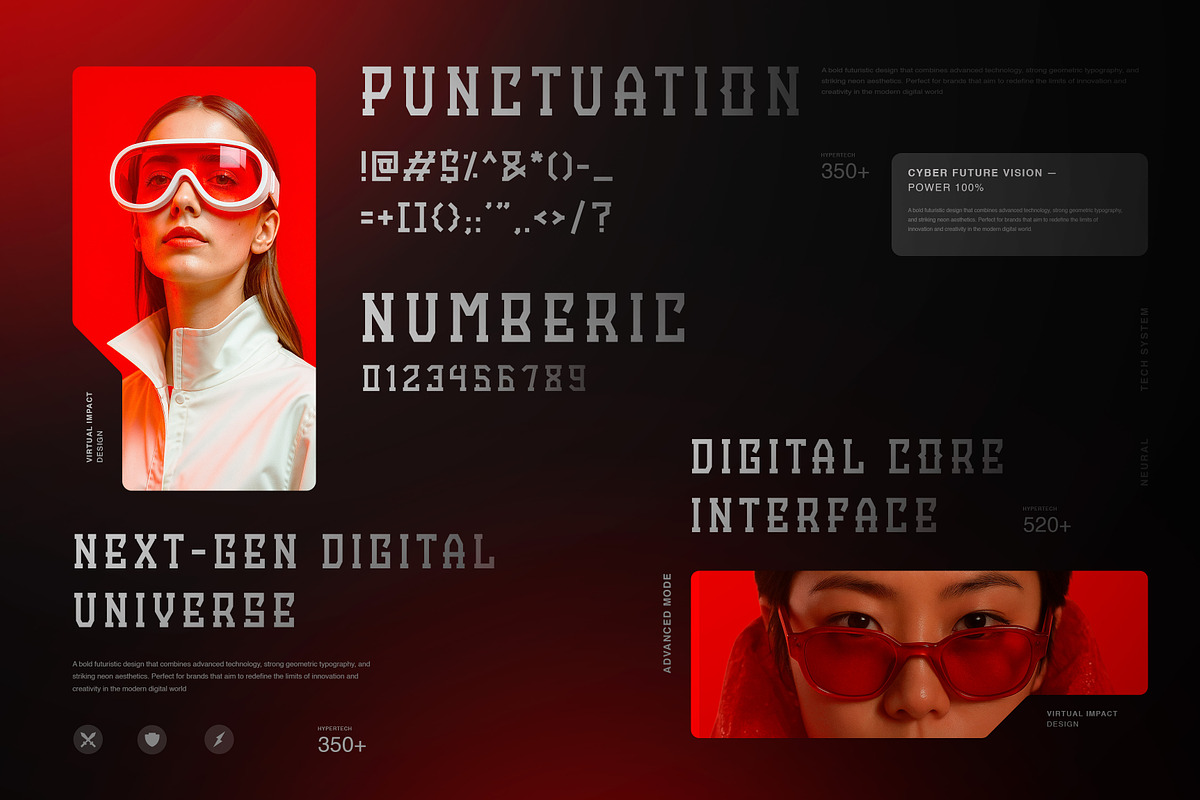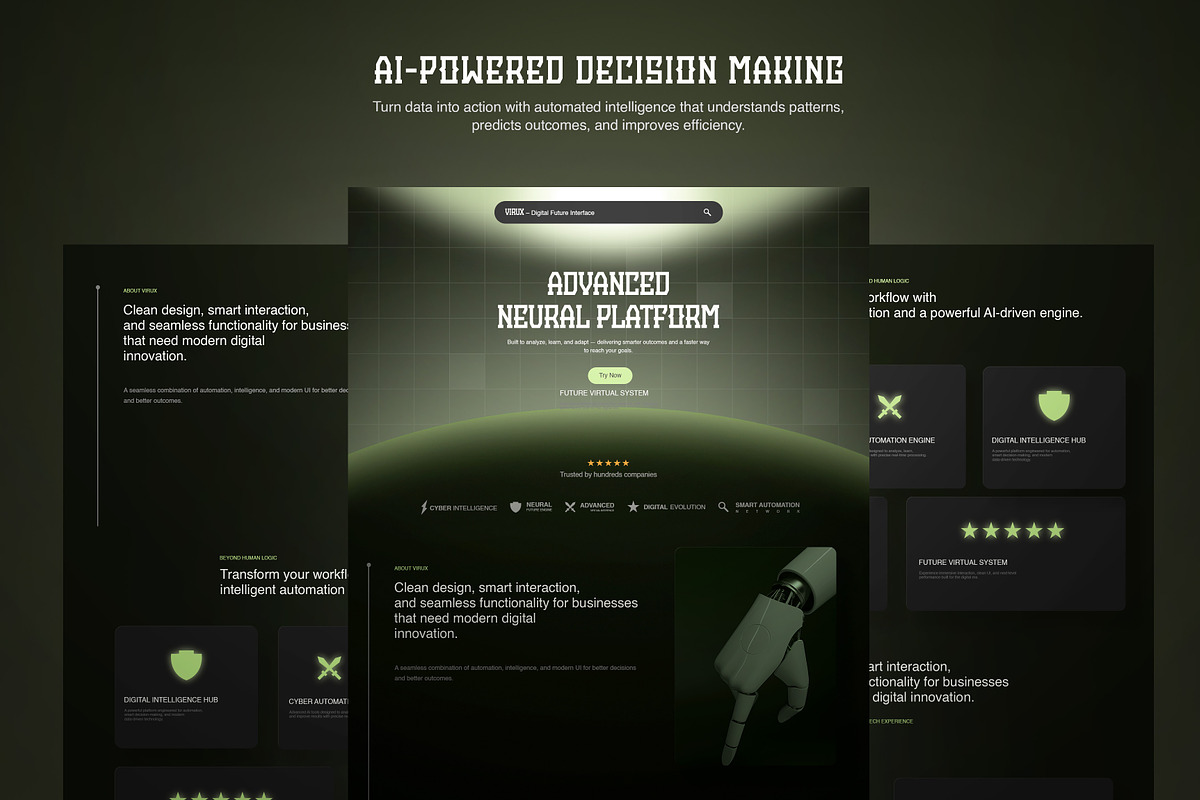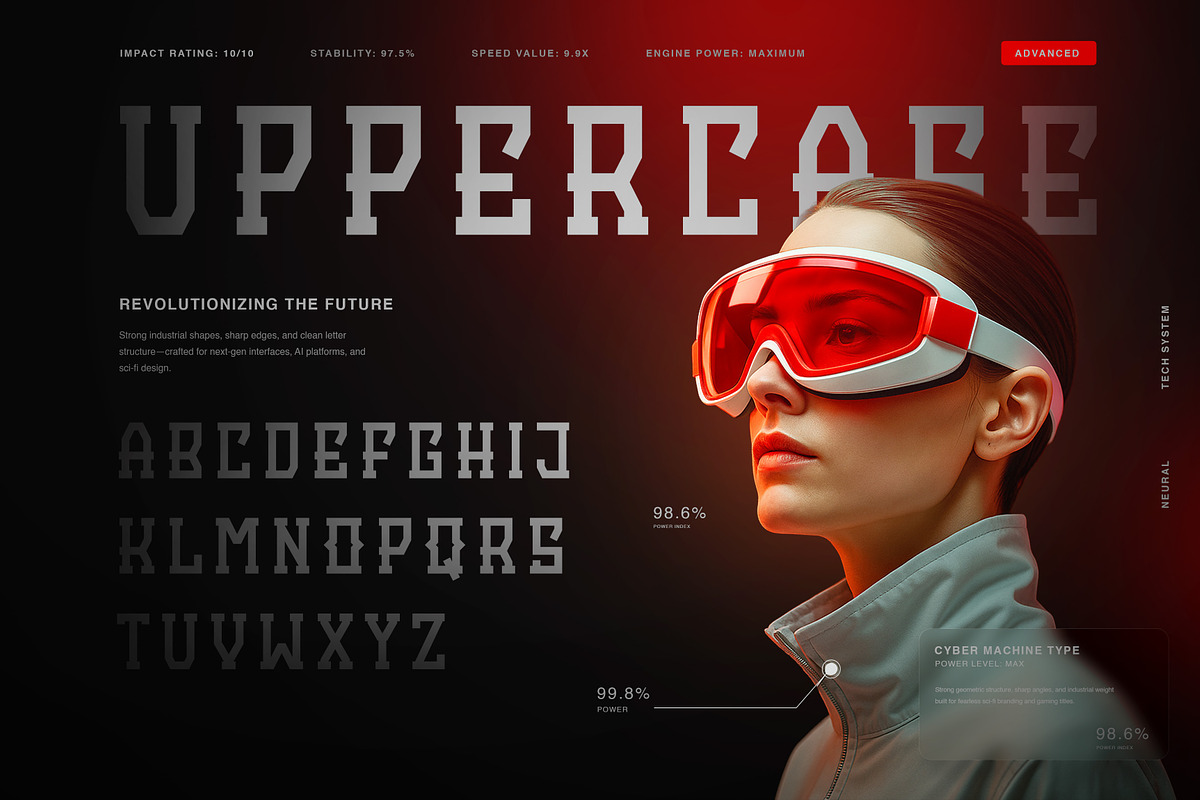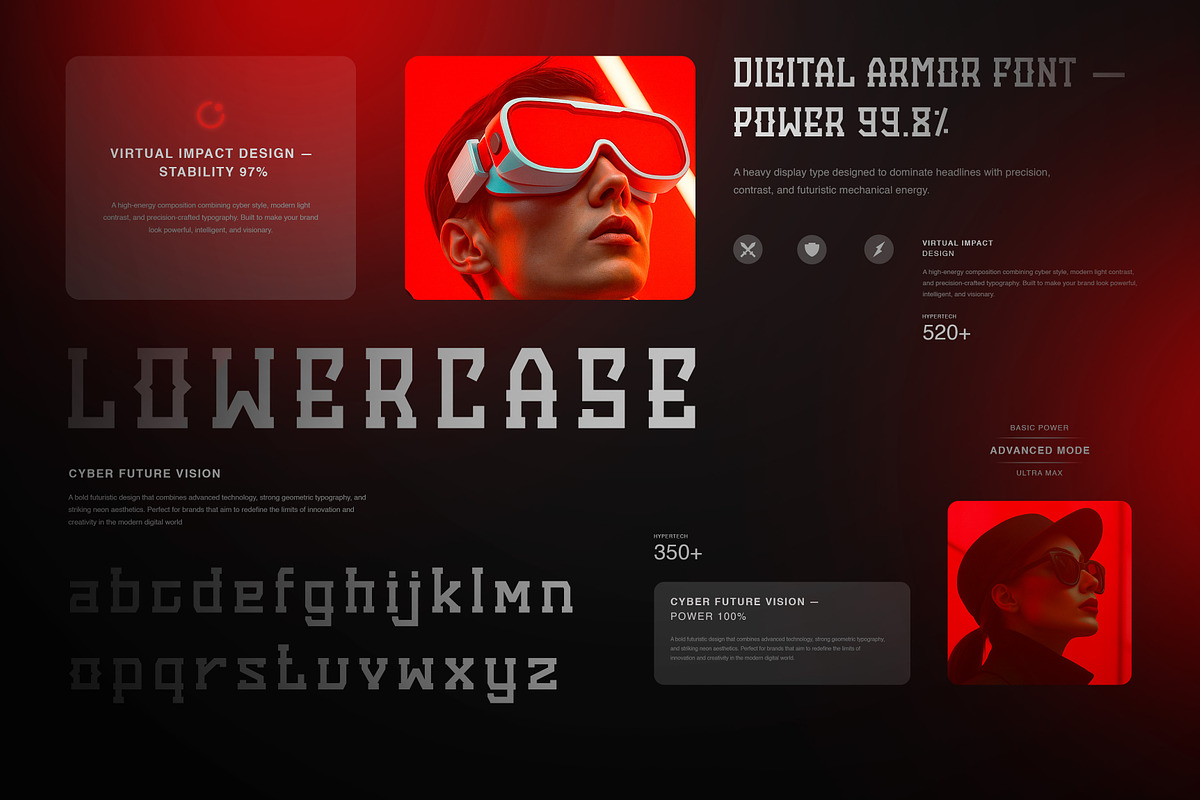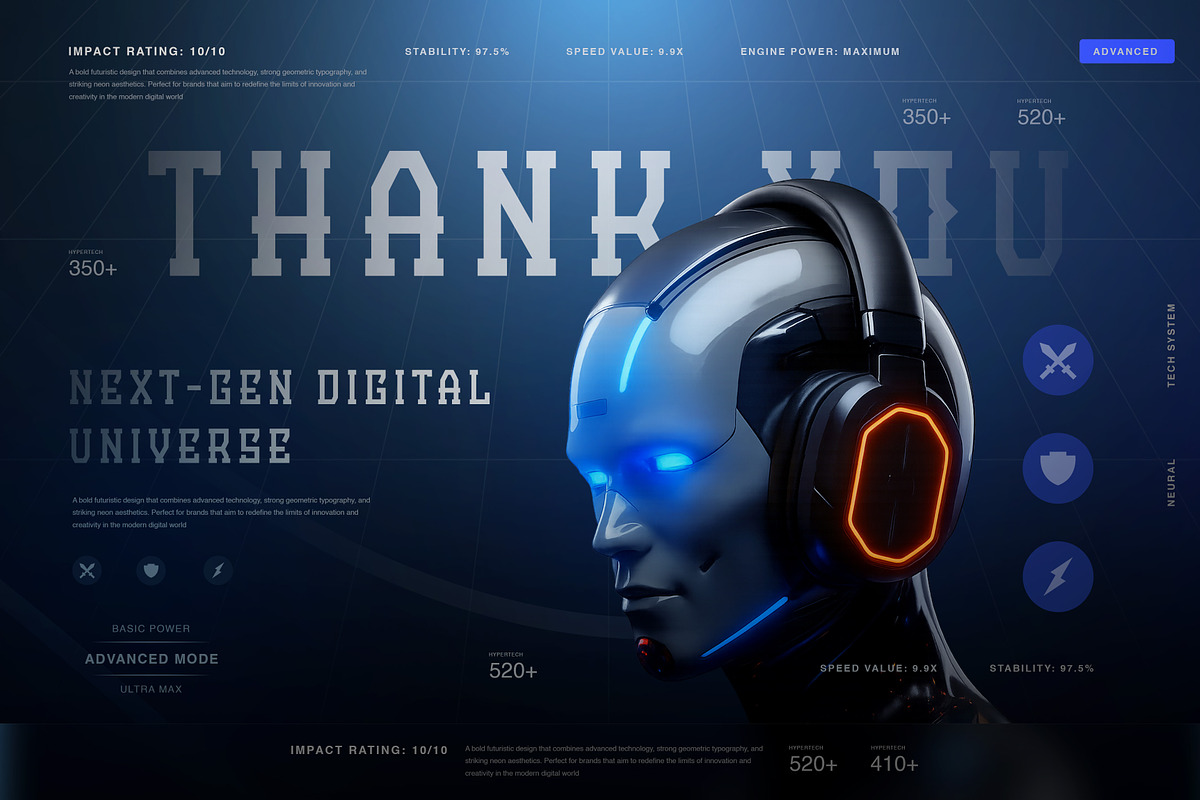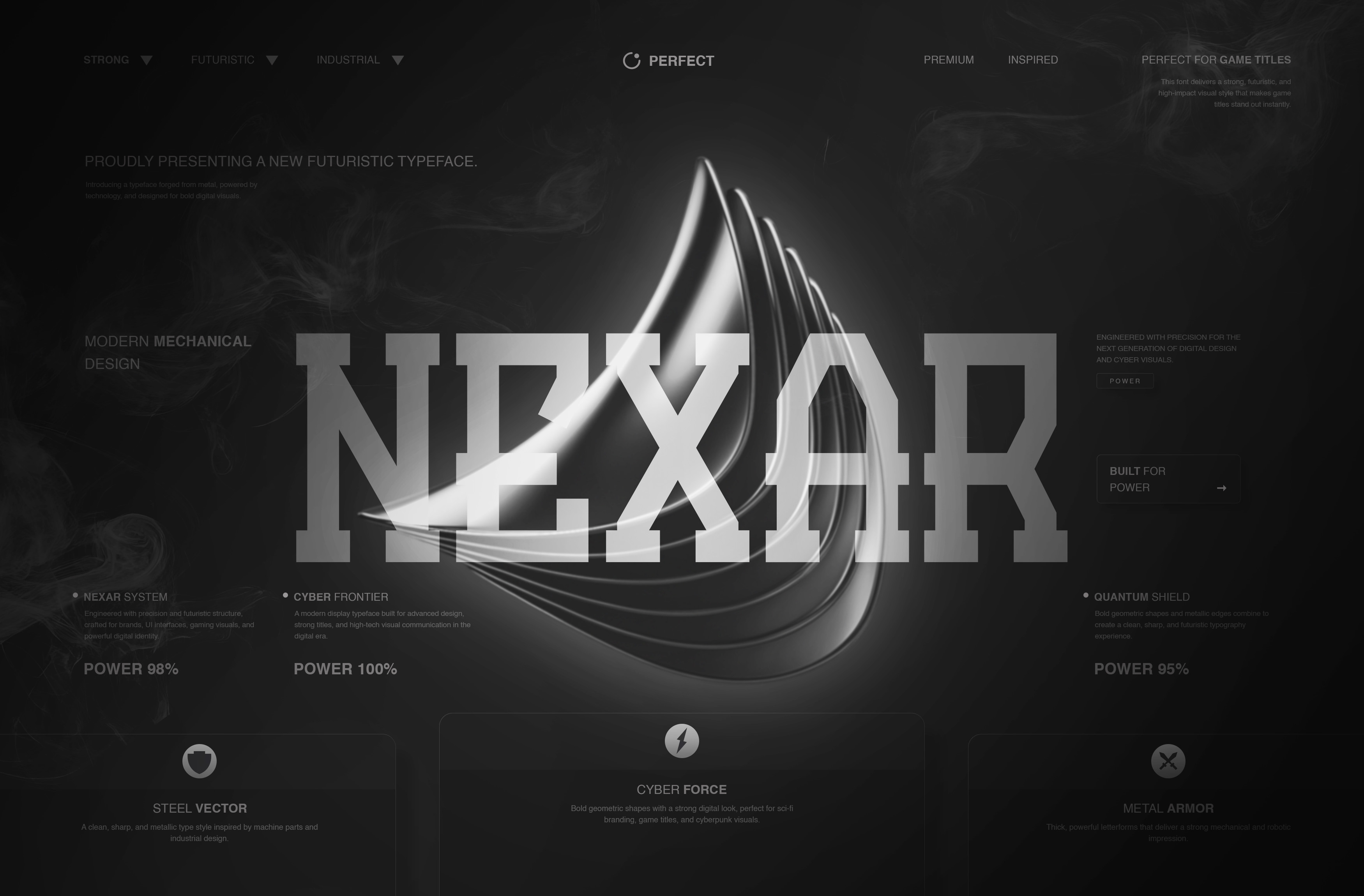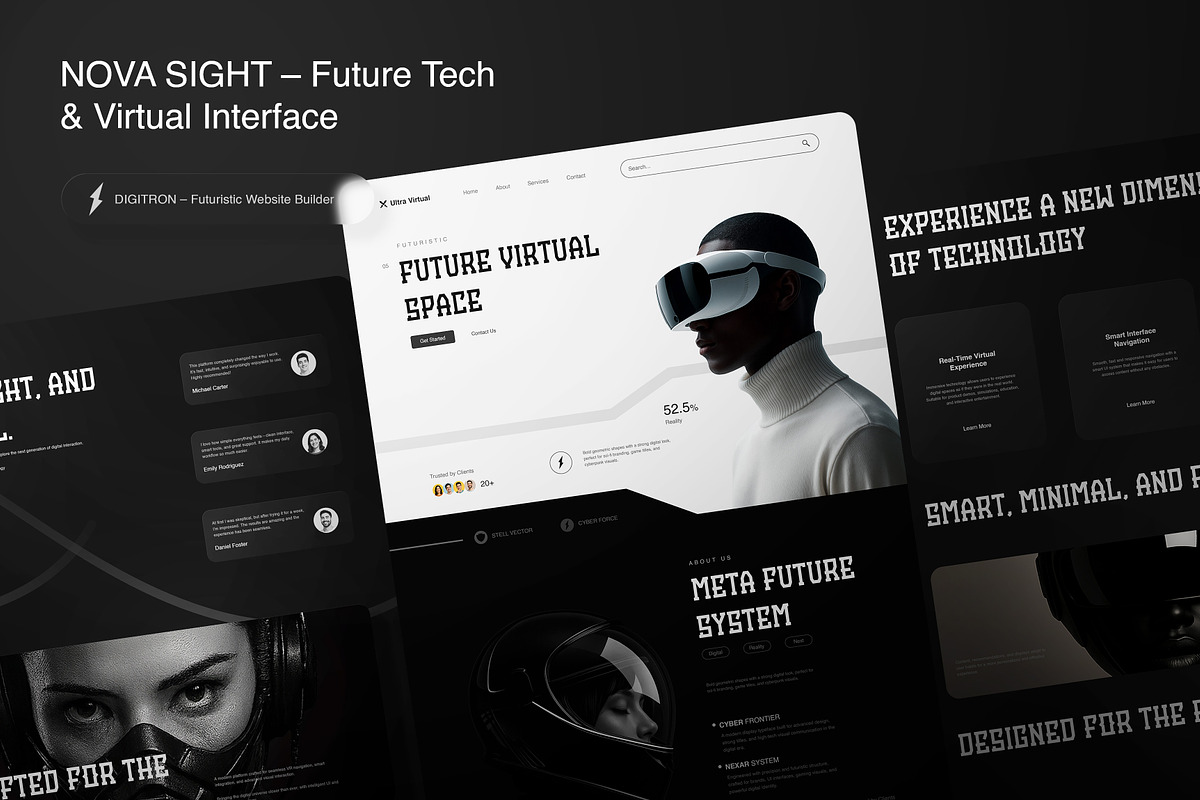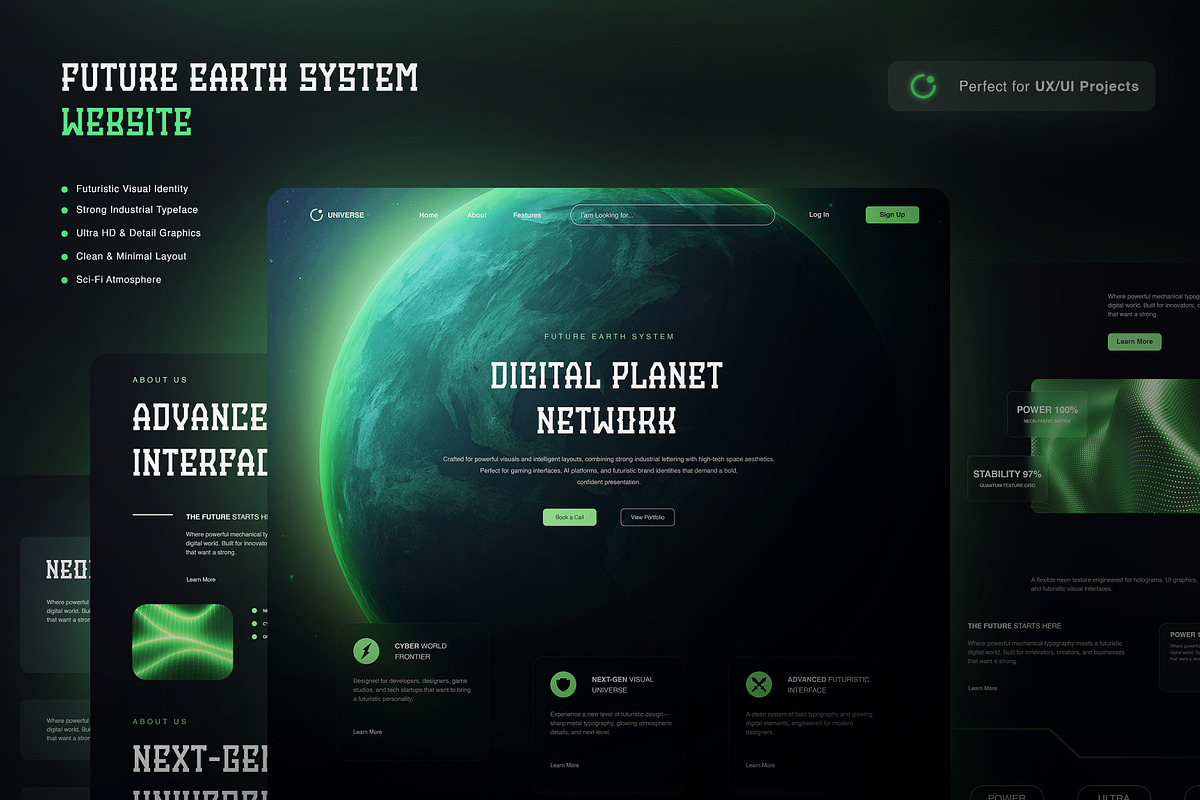
NEXAR – Futuristic Typeface
NEXAR – Futuristic Industrial Typeface
NEXAR is a bold futuristic typeface built with strong mechanical structure, sharp geometry, and high-impact visual energy. Designed for brands that demand power, precision, and modern digital style, this font delivers an aggressive yet clean look that stands out instantly in any layout.
Forged from metallic inspiration and engineered for advanced visual design, NEXAR is perfect for sci-fi projects, esports branding, game titles, robotic interfaces, posters, cyberpunk layouts, tech UI, and industrial graphic themes. Each character is crafted with strong angles, solid strokes, and machine-like structure, giving the typeface a powerful and professional personality.
✅ FEATURES
✅ PERFECT FOR
• Sci-Fi Titles • Esports & Gaming Logo • Tech Company Branding • Movie Posters • Robotic & Mechanical Themes • Cyberpunk Visuals • UI Interface & HUD Graphics • Industrial Display Typography • Futuristic Product Packaging
✅ WHY NEXAR STANDS OUT
• High Power Visuals: Thick strokes and sharp geometry create a dominant look • Modern Mechanical Style: Inspired by steel, robotics, and digital engineering • Premium Display Quality: Ideal for large headlines and bold design composition • Futuristic Energy: Makes every title look modern, strong, and technologically advanced